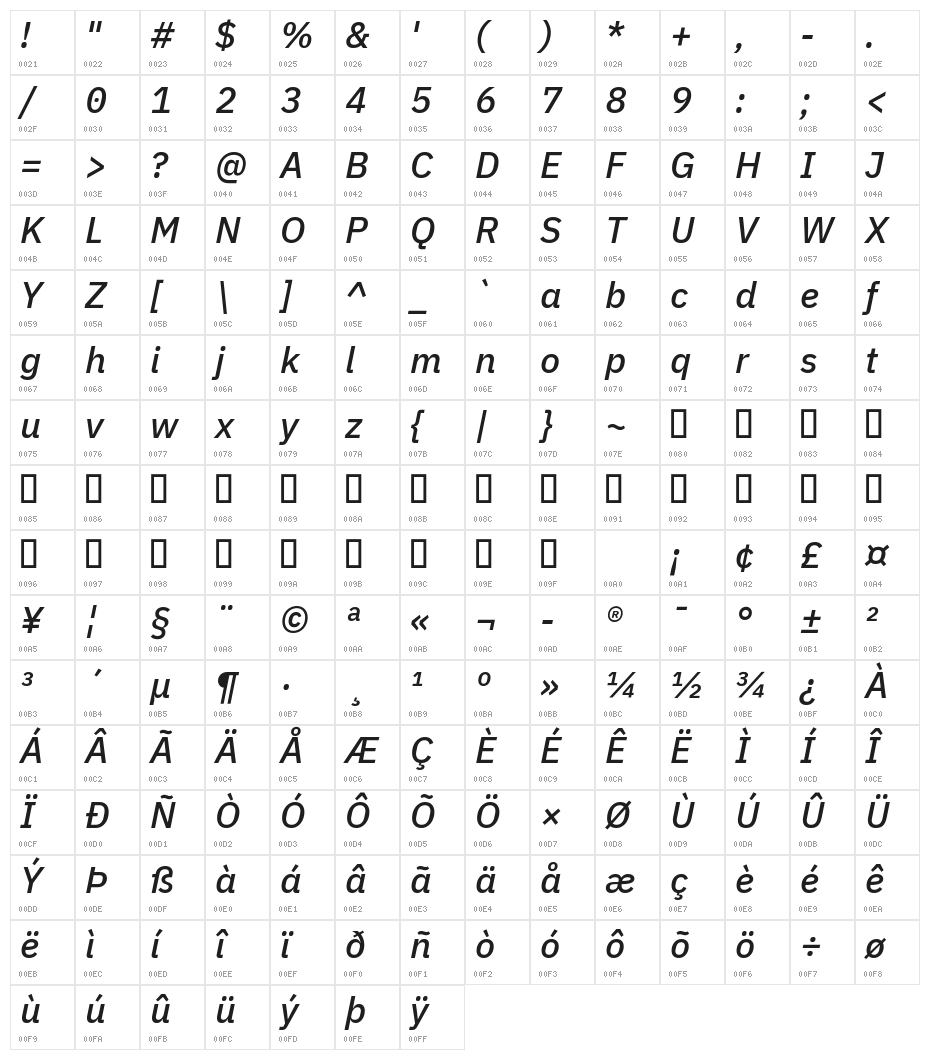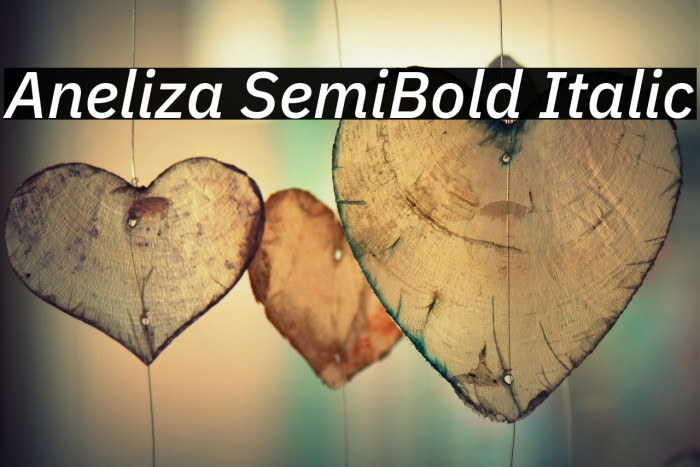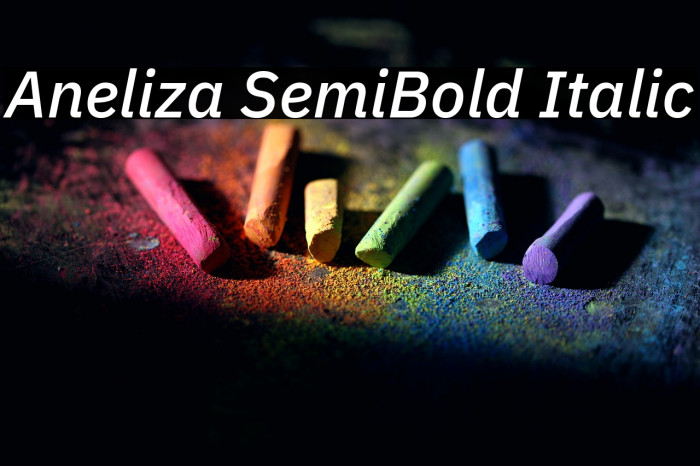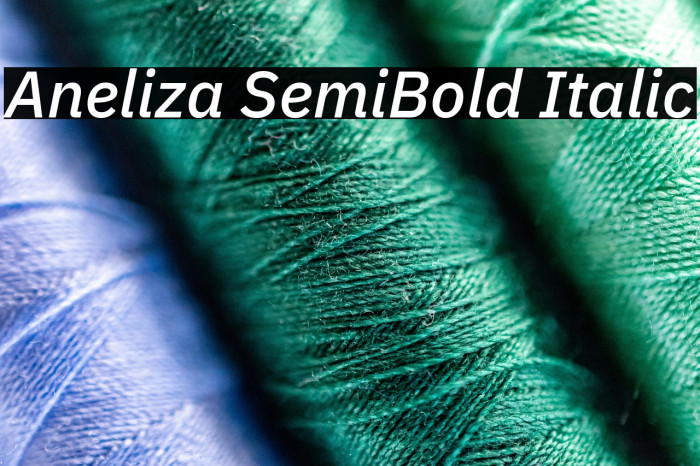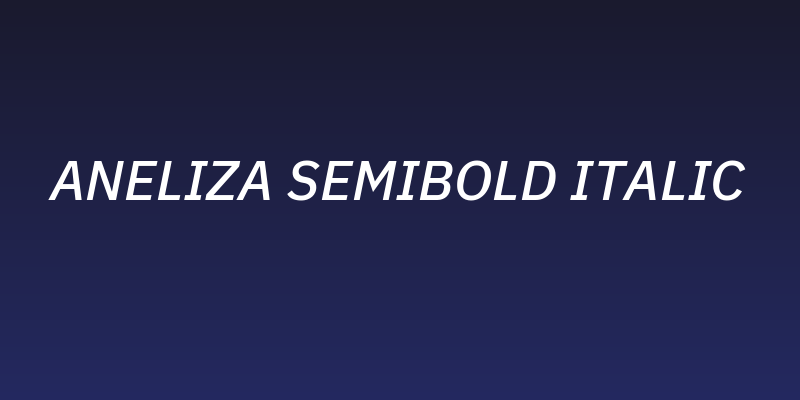
Aneliza SemiBold Italic Font
Aneliza SemiBold Italic Description
This font exhibits a modern and sleek design with a semi-bold weight and italic style. The characters are slightly slanted, giving a dynamic and forward-moving appearance. The strokes are consistent, with medium contrast, providing a balanced look that is both professional and approachable. The uppercase and lowercase letters are well-proportioned, and the numerals are clear and legible. Special characters are included, maintaining the font's cohesive style. The overall design is versatile, suitable for various applications.
| Proposed Projects | Ideal for branding, advertising, and editorial design projects where a modern and professional look is desired. |